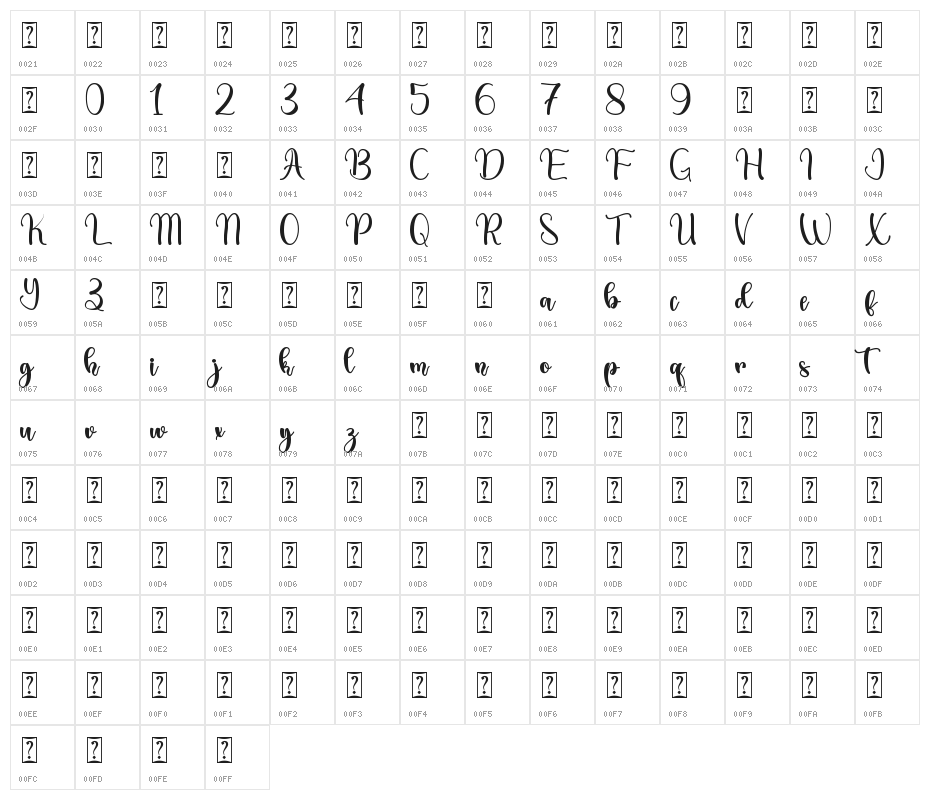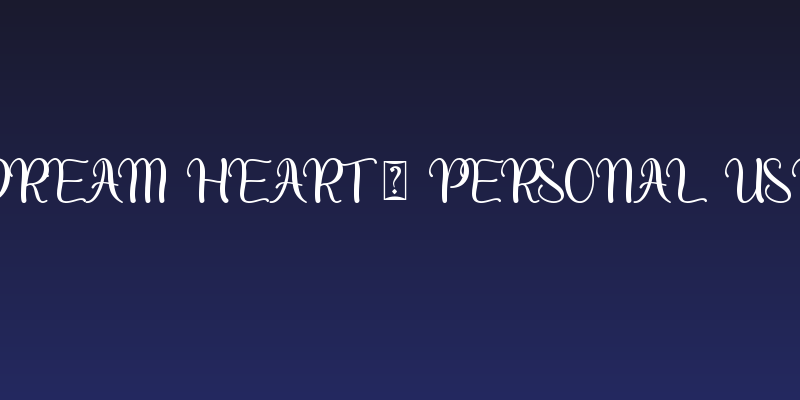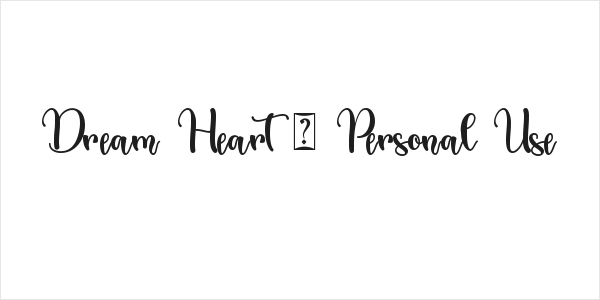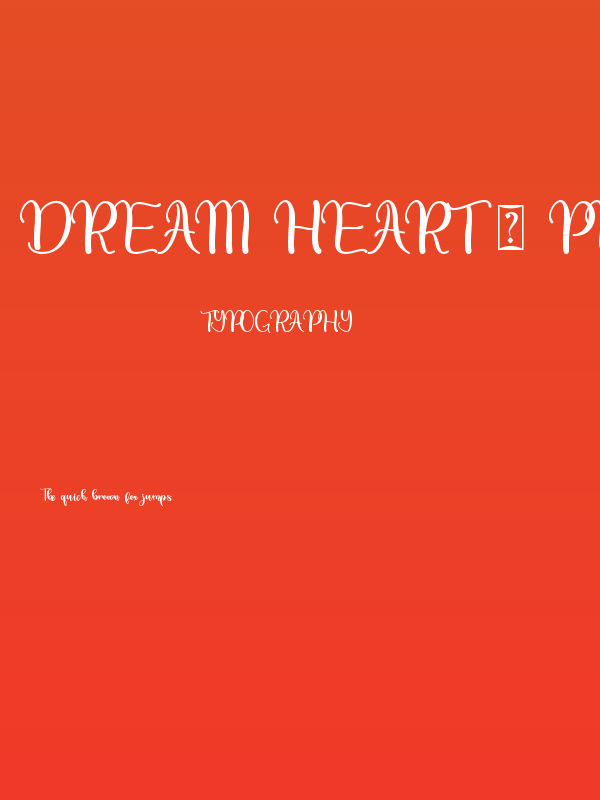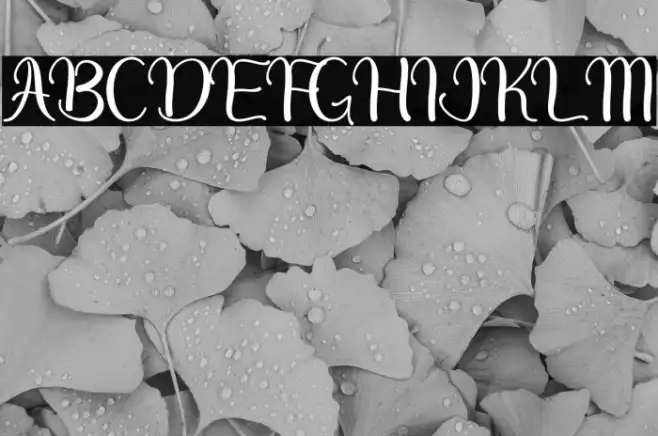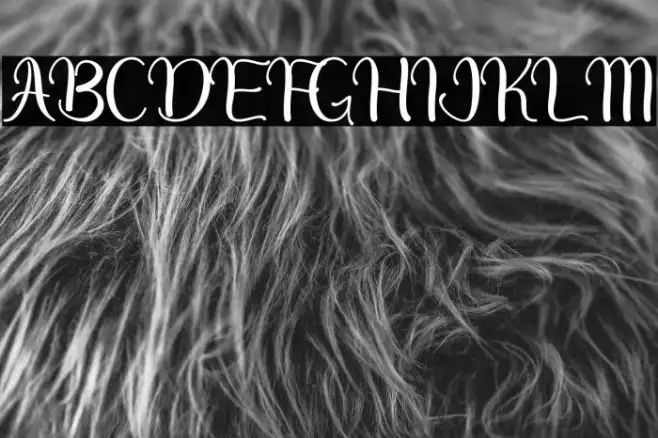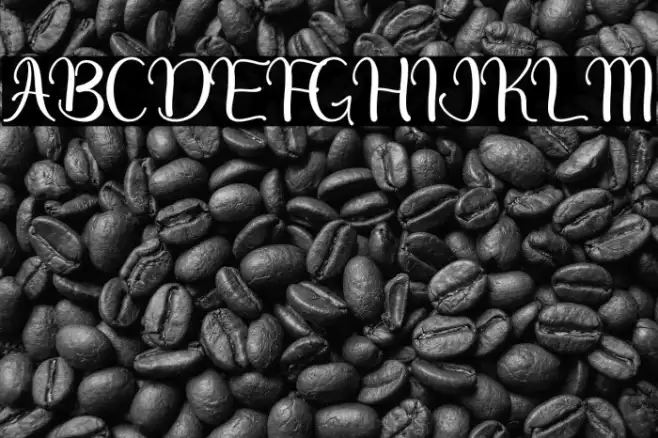
Dream Heart - Personal Use Font
Dream Heart - Personal Use Description
This font features a playful and elegant script style, characterized by its flowing, cursive letters with varying stroke widths. The uppercase letters are tall and graceful, with a slight slant that adds a dynamic feel. The lowercase letters are more rounded and connected, enhancing the script's fluidity. Numbers are consistent with the overall style, maintaining the same playful curves. The font's decorative nature makes it ideal for creative projects, offering a sense of whimsy and charm. Its bold strokes and intricate details make it stand out, perfect for designs that require a touch of elegance and personality.